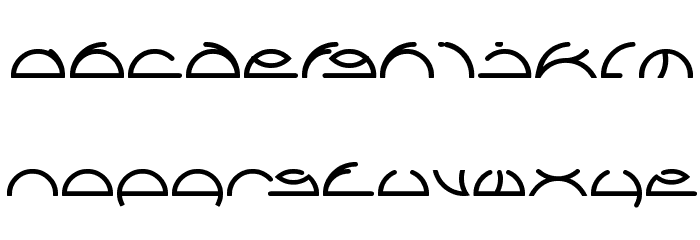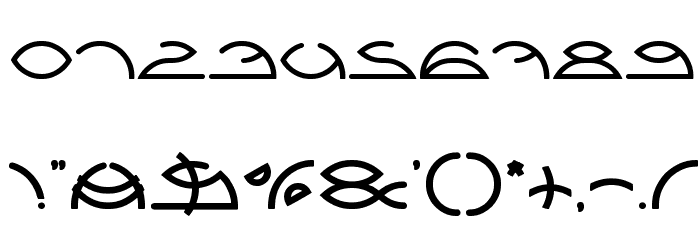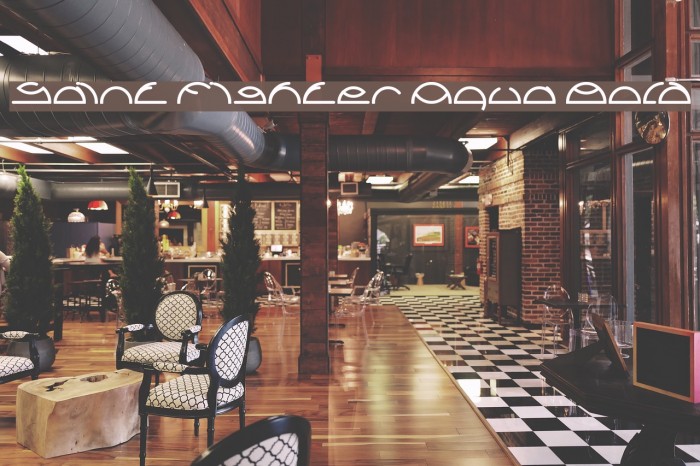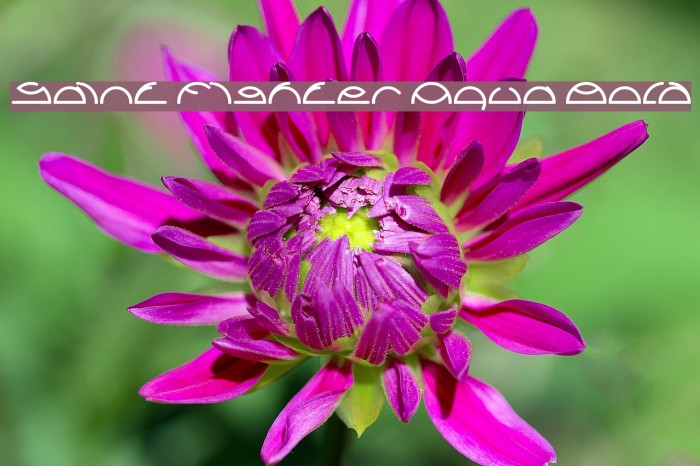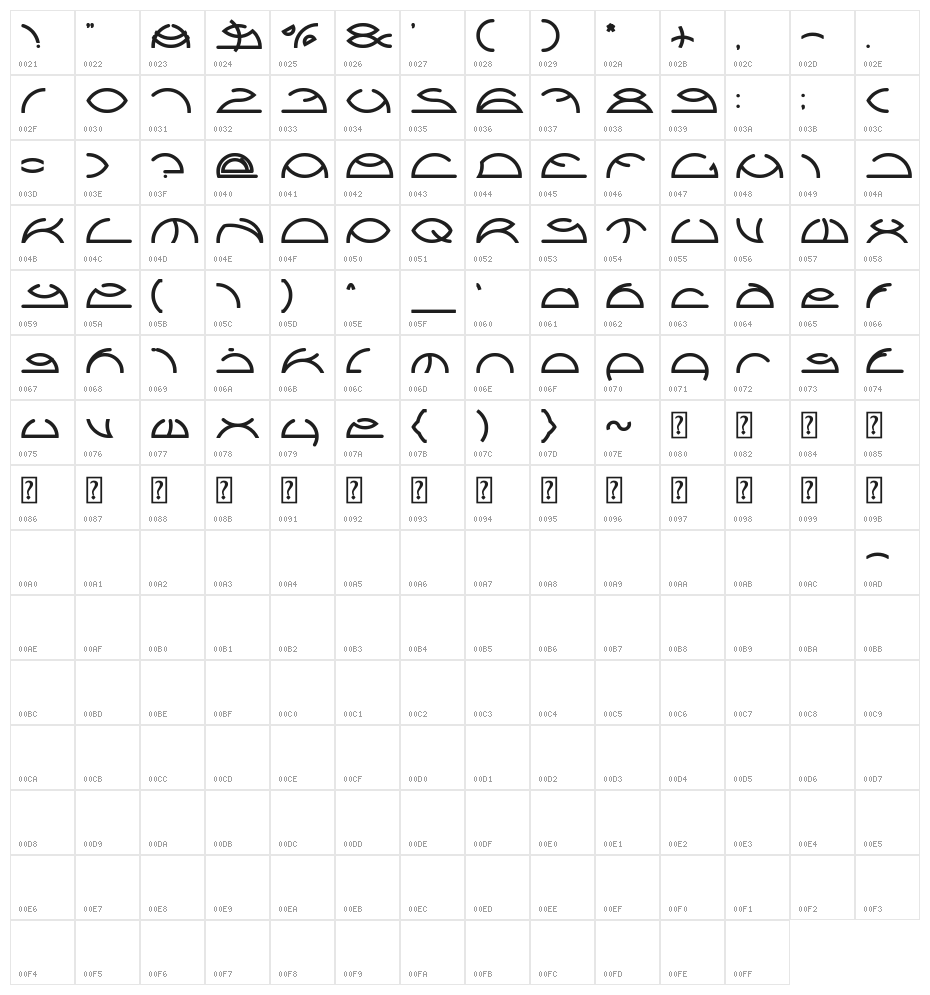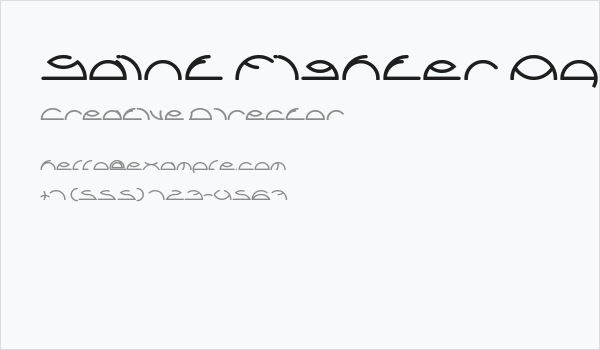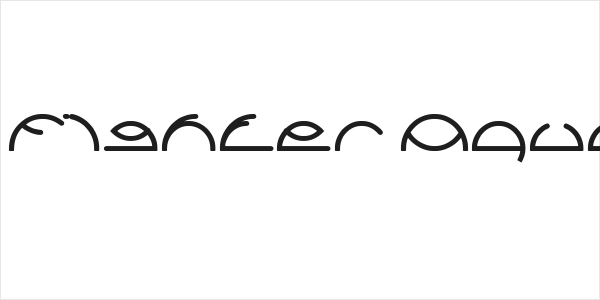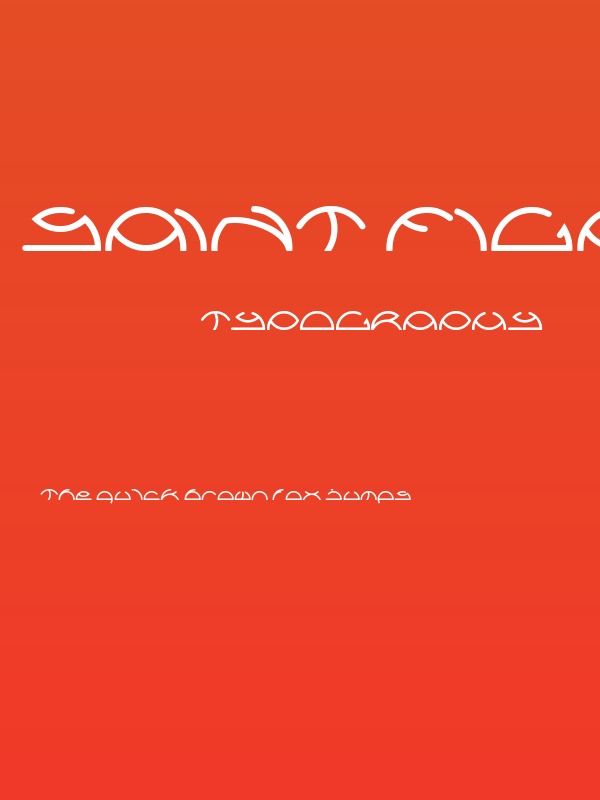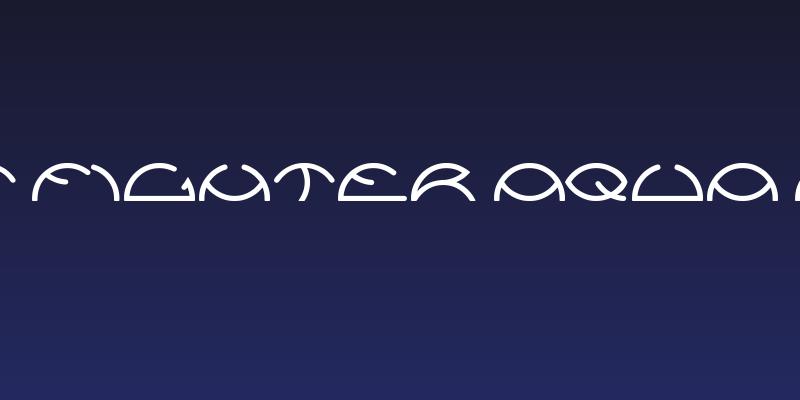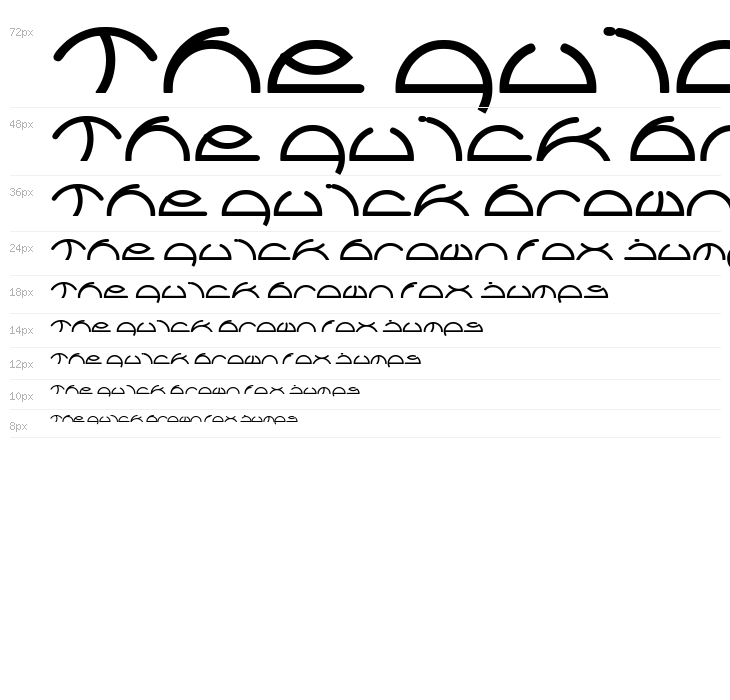
Saint Fighter Aqua Bold Font
This font features a futuristic and abstract design, characterized by its unique and unconventional letterforms. The characters are composed of smooth, curved lines and geometric shapes, creating a sense of movement and fluidity. The overall appearance is bold and striking, with each letter maintaining a consistent thickness throughout. The font's design is highly stylized, making it suitable for creative and modern applications. The numbers and special characters follow the same aesthetic, ensuring a cohesive look across all text elements.
A futuristic and abstract font with bold, smooth curves and geometric shapes.
- Proposed Projects: Ideal for sci-fi themed projects, video game titles, modern branding, and creative posters.
- Overall Style: Futuristic